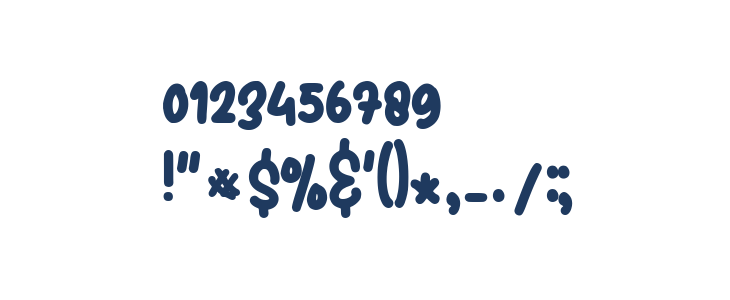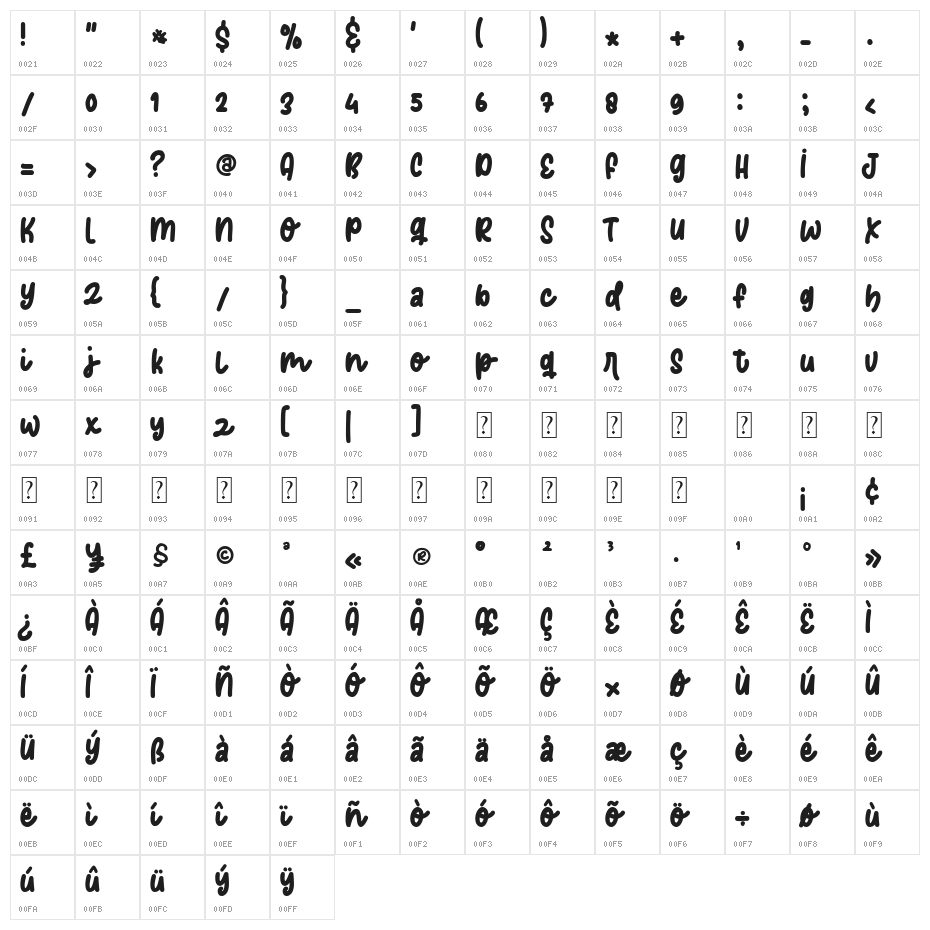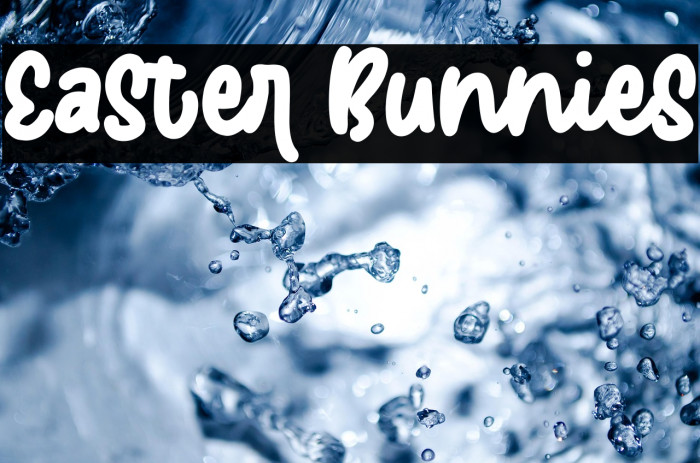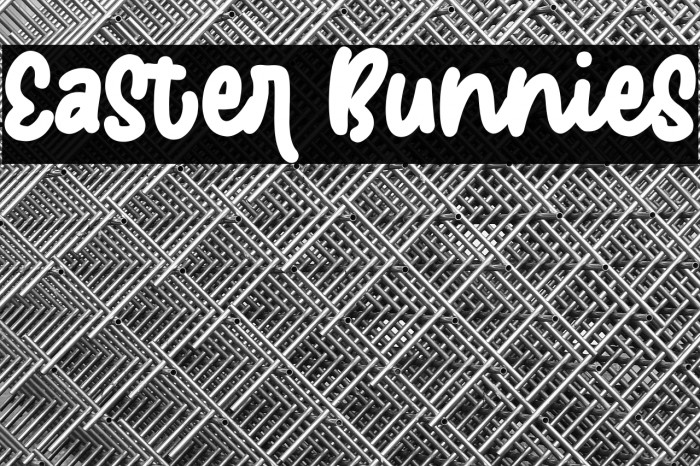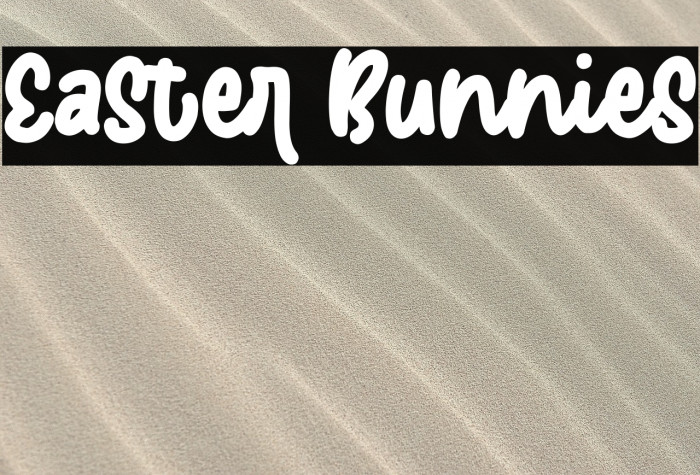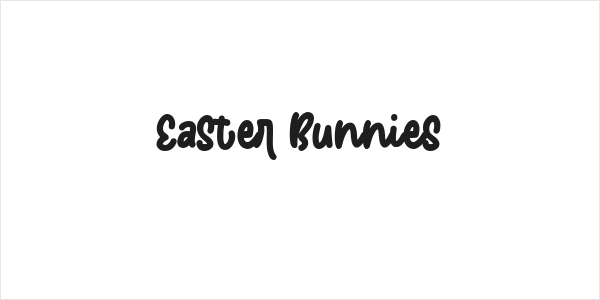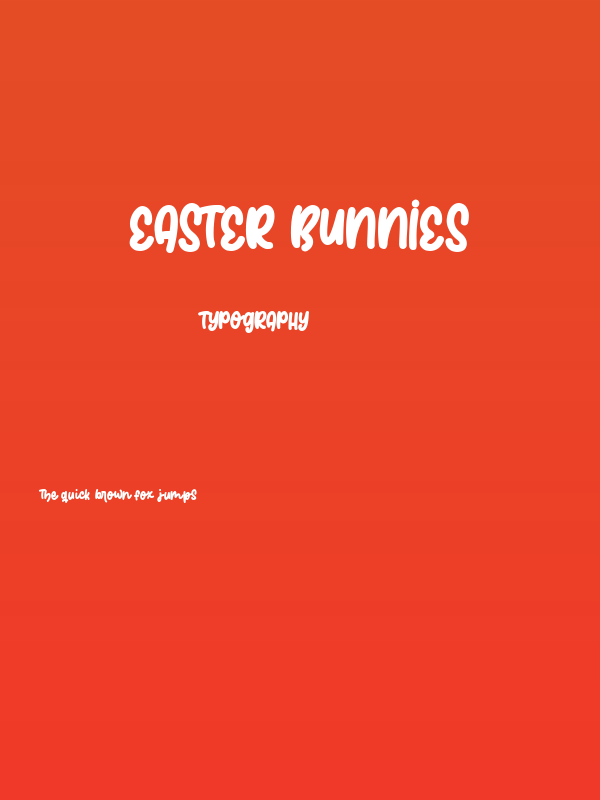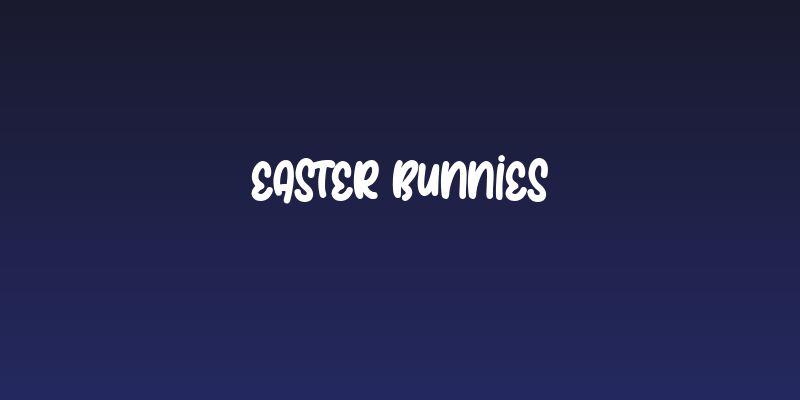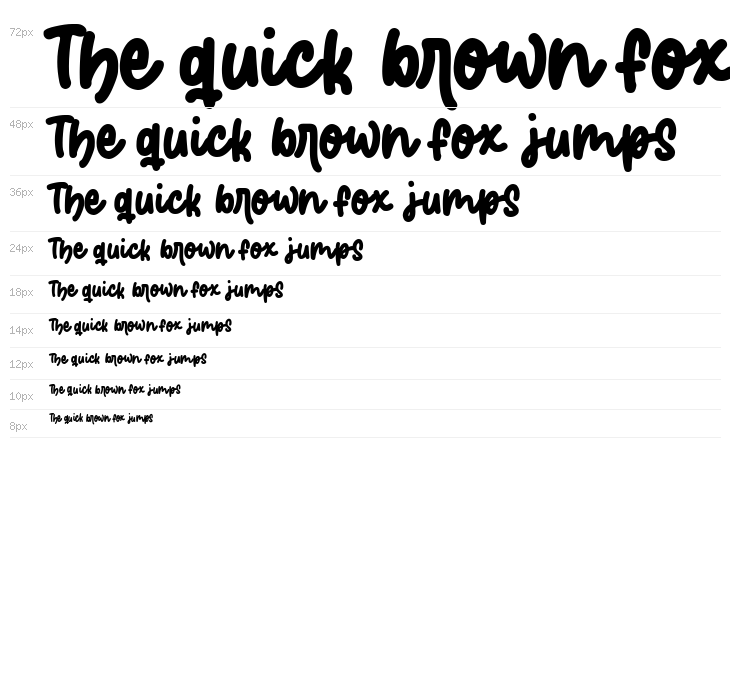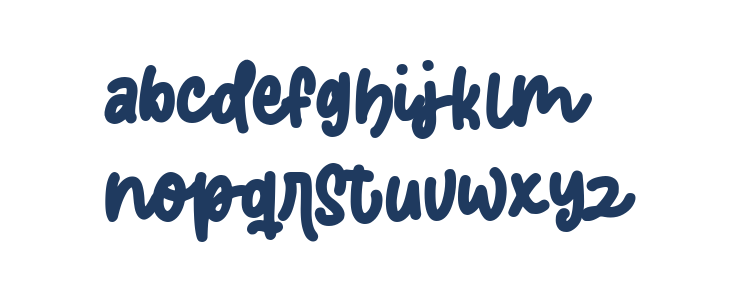
Easter Bunnies Font
Easter Bunnies Description
This playful and whimsical font features bold, rounded characters with a hand-drawn aesthetic. The letters are connected in a smooth, flowing manner, giving it a casual and friendly appearance. The uppercase and lowercase letters maintain a consistent style, with a slightly exaggerated thickness that adds to its charm. The numbers and special characters are equally bold and maintain the same playful style, making it versatile for various uses. The overall look is reminiscent of handwritten notes or doodles, perfect for projects that require a personal touch.
| Proposed Projects | Ideal for children's books, greeting cards, playful branding, and social media graphics. |